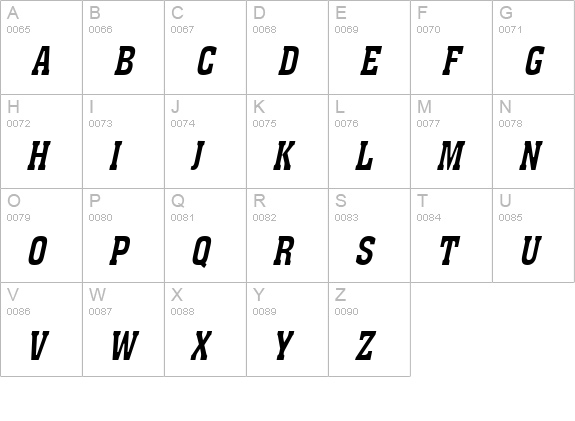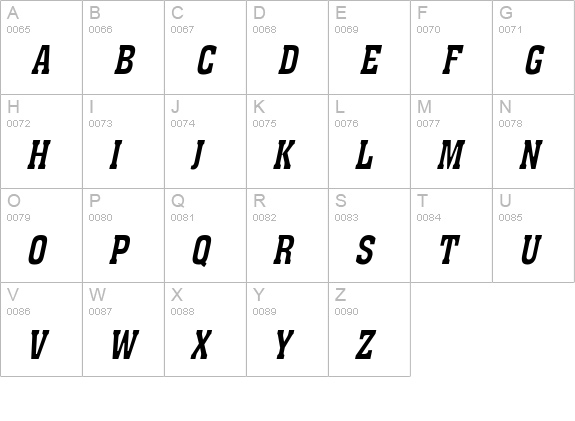
Ache Condensed Italic Font Details
Ache Condensed Italic is a distinctive, condensed-width, italic variant in the Ache typeface family \xE2\x80\x94 well suited to design and typography projects.
Ache Condensed Italic font is a modern and stylish typeface that exudes elegance and sophistication. Its sleek and slender design makes it perfect for a wide range of projects, from branding to editorial design. The italicized style adds a touch of flair and uniqueness to any text. What sets Ache Condensed Italic font apart is that it is available for free download at FontsMarket.com. This means you can easily access this high-quality font without any cost, making it a valuable addition to your font collection. Whether you're working on a personal project or a professional design, Ache Condensed Italic font is sure to elevate your work with its refined aesthetic and versatility.